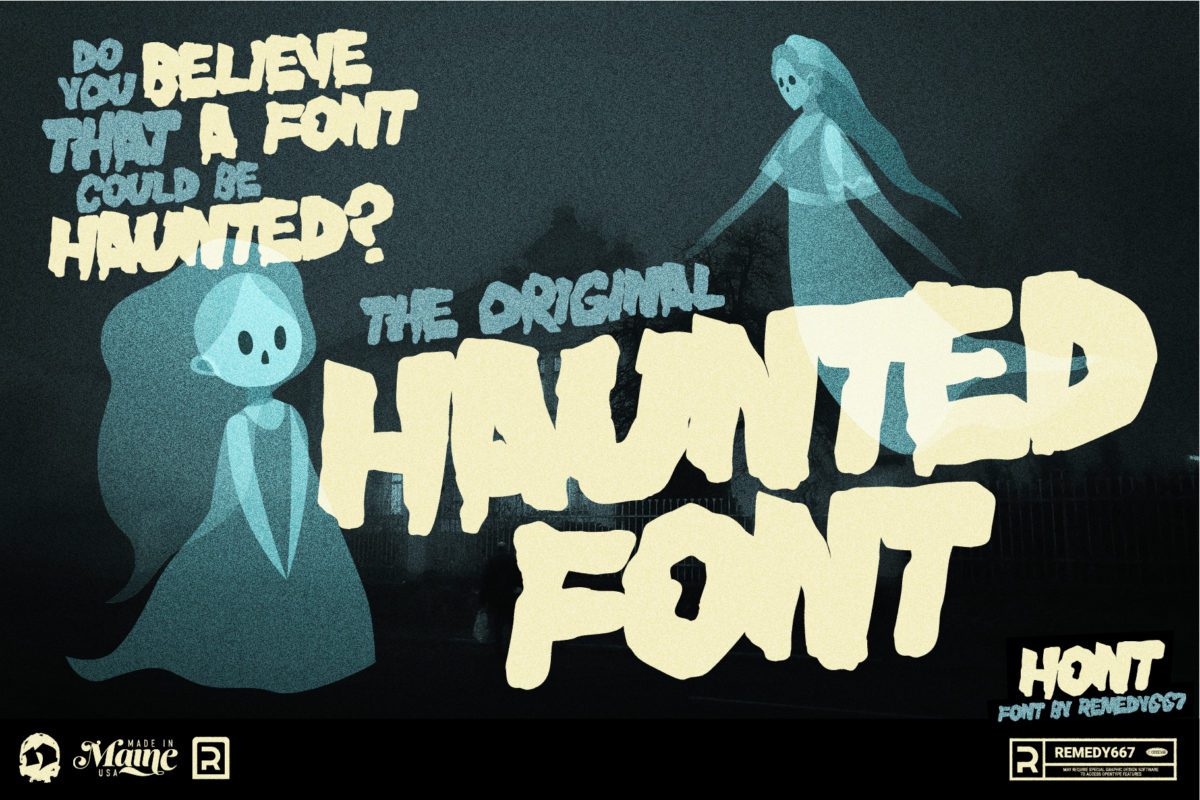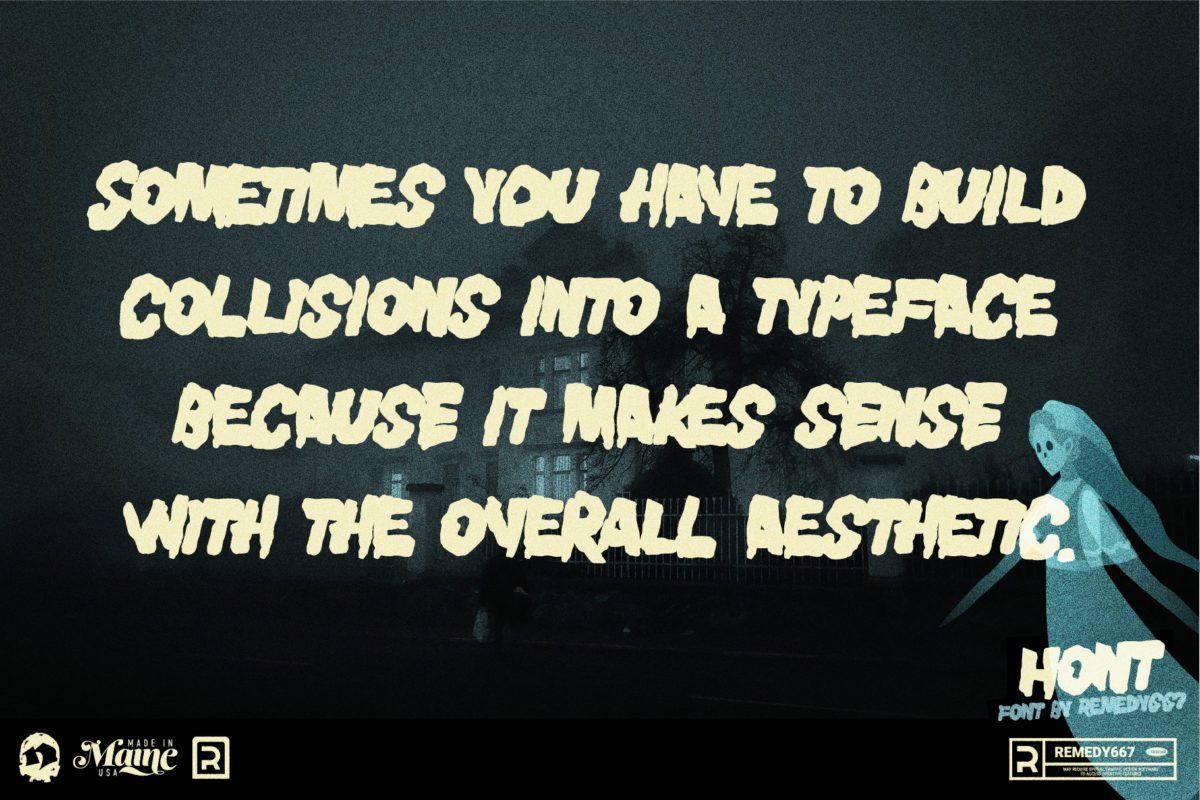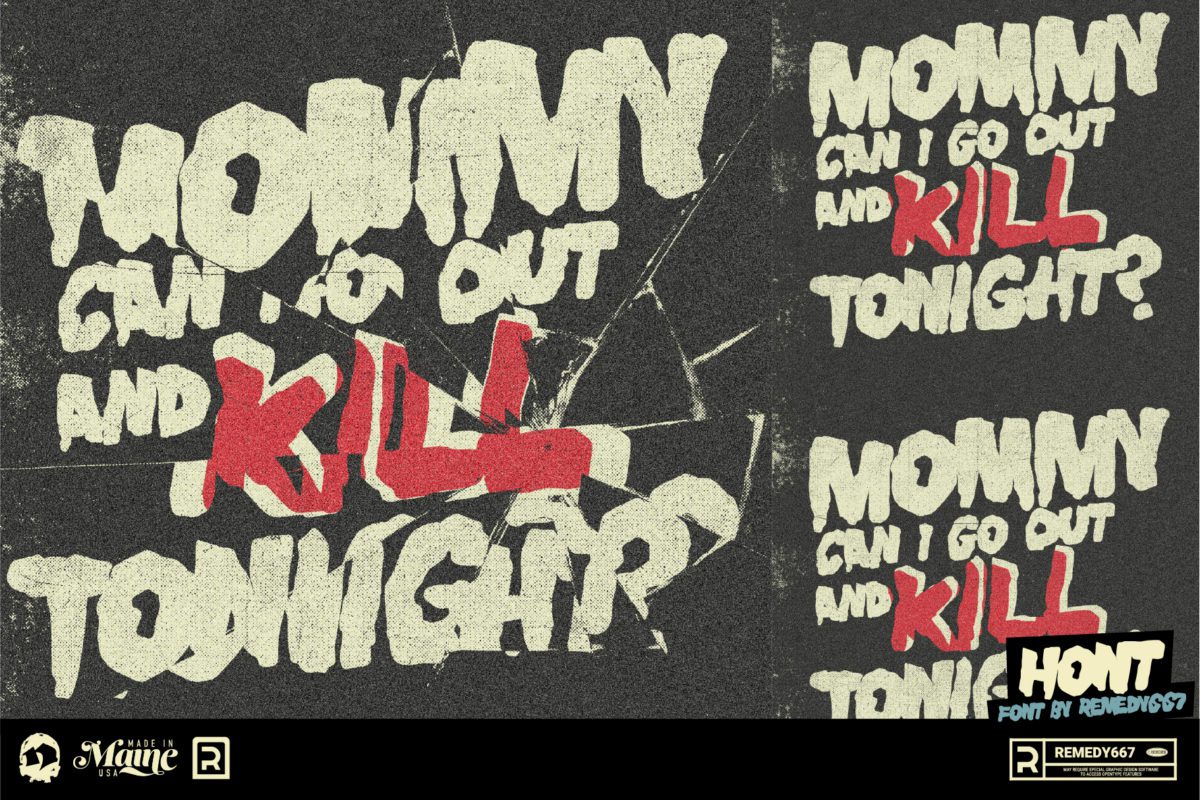
Hont
Hont, the original Haunted Font is here. We’ve captured the essence of an old-school horror film and now you can use it to create awesome-looking titles for all your projects. With its chunky appearance, this font is perfect for vintage poster designs, t-shirt designs, logos, or anything that needs a hint of spooky.
Hont is the ultimate Haunted Font that looks amazing on all projects. Inspired by classic mid-century horror films, it will give your projects just the right amount of classic horror.
• Doubles Elimination gives you a more natural look.
• Inspired by classic mid-century horror films.
• Possibly haunted, may possess you to create awesome work.